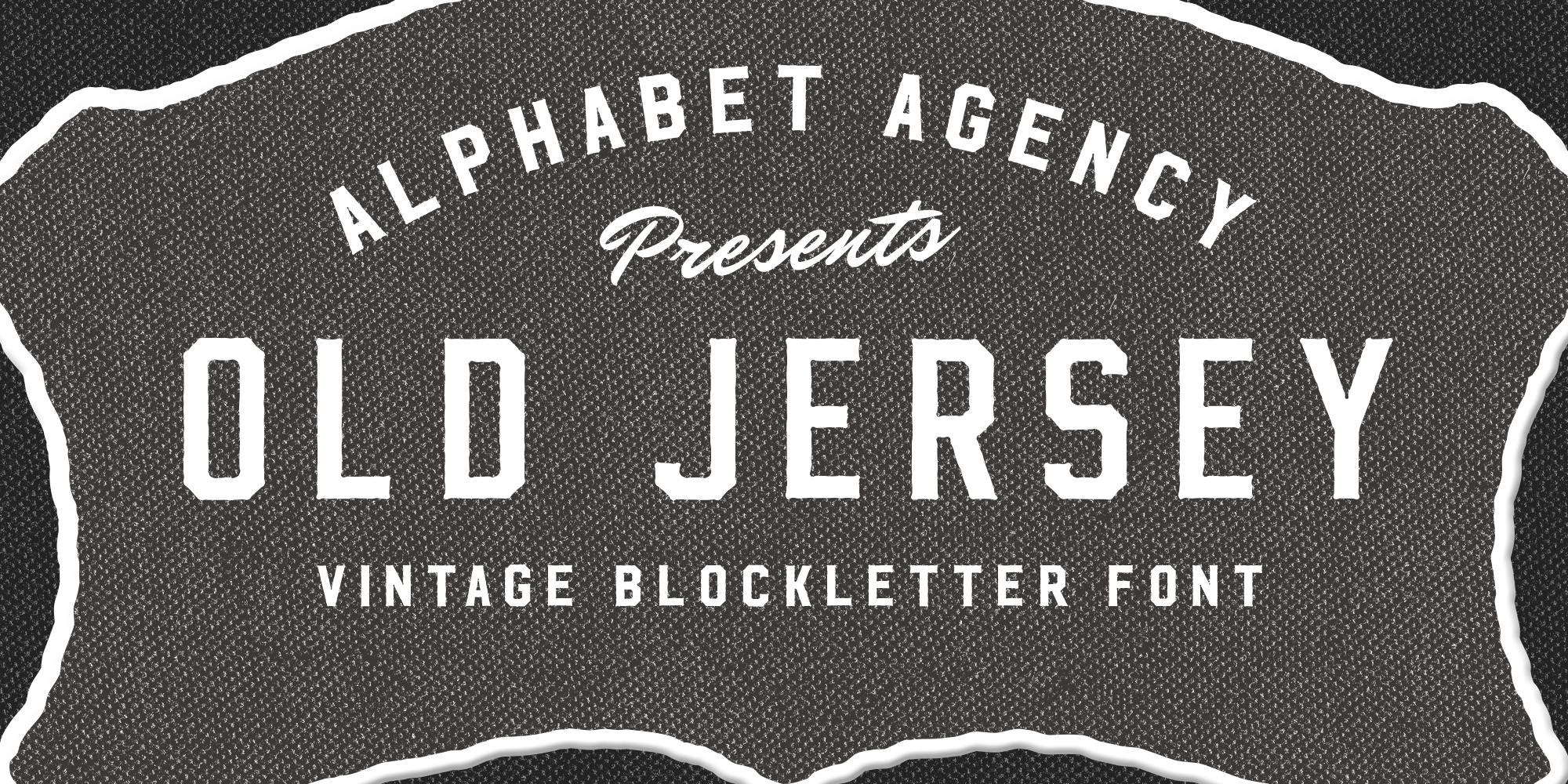
The Old Jersey Font is perfect for vintage sports team logos, retro baseball merchandise, classic athletic apparel, nostalgic sports bar signage, old-school gymnasium graphics, traditional varsity designs, heritage sports publications, vintage college materials, classic American sportswear, and authentic throwback athletics branding.
What makes the Old Jersey Font exciting is its authentic ability to capture the timeless spirit and nostalgic charm of classic American athletics through traditional letterforms that embody the golden age of sports when team pride and athletic excellence defined community identity. This distinguished typeface features vintage proportions, athletic-inspired character construction, and classic American design elements that instantly evoke memories of legendary ballparks, championship teams, and the pure love of the game that transcends generations. Each letter carries the heritage and tradition of authentic American sportsmanship.
The Old Jersey Font family includes regular, bold, condensed, and outline versions, along with sports symbols, athletic numbers, and vintage decorative elements that enhance its classic appeal across various sports and recreation design applications.
Whether you're creating vintage sports branding or designing authentic athletic materials, Old Jersey Font Free Download delivers maximum nostalgia and genuine sports heritage authenticity. Its expertly crafted traditional letterforms ensure excellent readability while maintaining that essential classic character that speaks to sports fans and athletes who appreciate authentic American athletic tradition. The font's sports features include contextual alternates, athletic ligatures, and vintage variations that automatically create authentic old-school sports aesthetics. Sports designers and athletic brand creators consistently choose this font for projects requiring genuine vintage credibility and classic American sports appeal. The Old Jersey Font transforms ordinary text into legendary expressions of athletic heritage, making it an essential component of any designer's vintage sports typography collection.